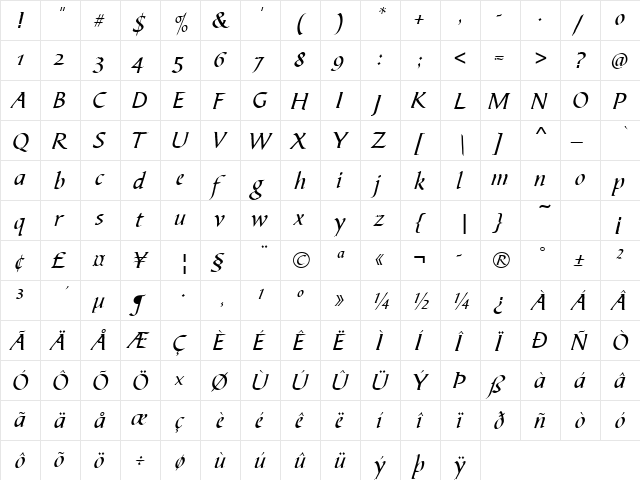
BibleScrT Regular
Design Context for BibleScrT Typeface
BibleScrT takes a measured approach to typography — its balanced proportions and neutral character make it a reliable workhorse for both digital and print work.